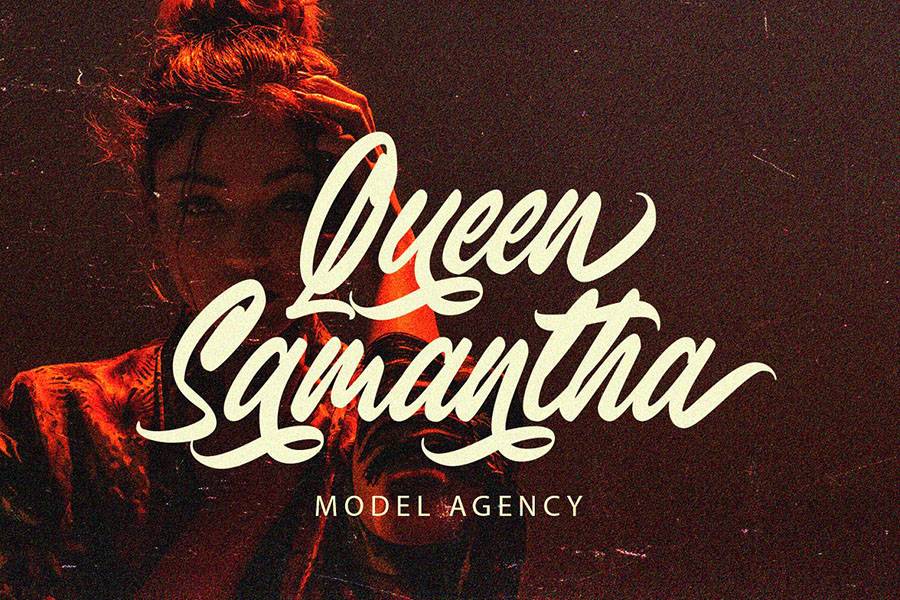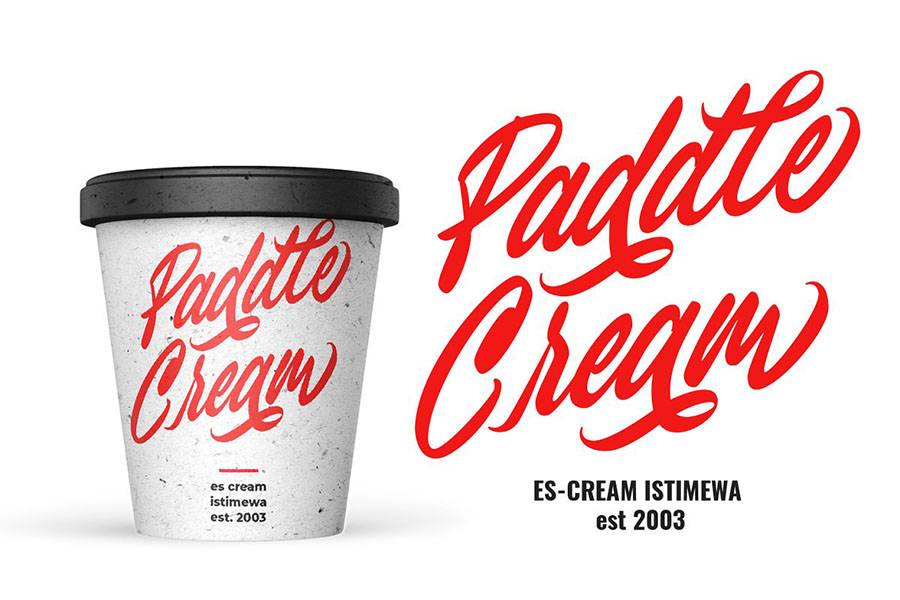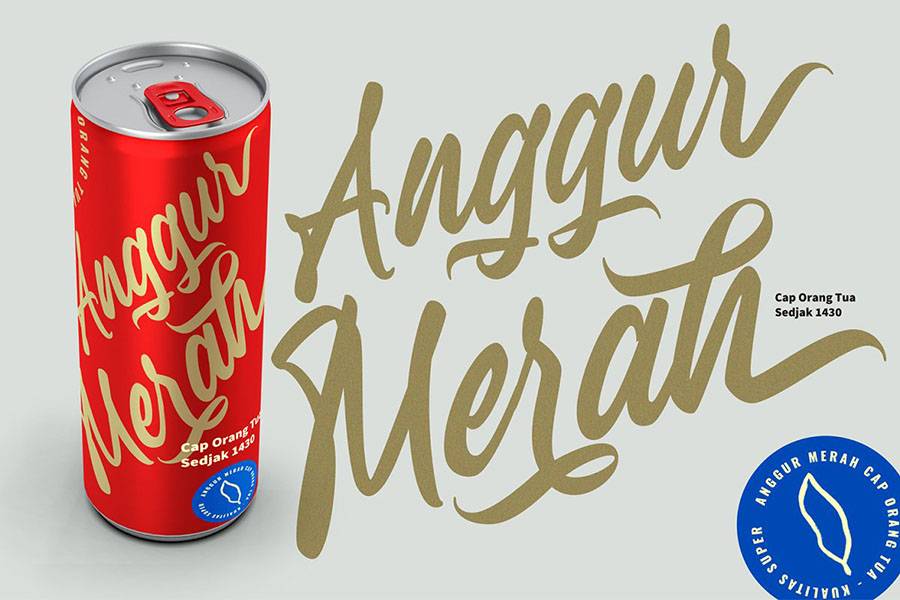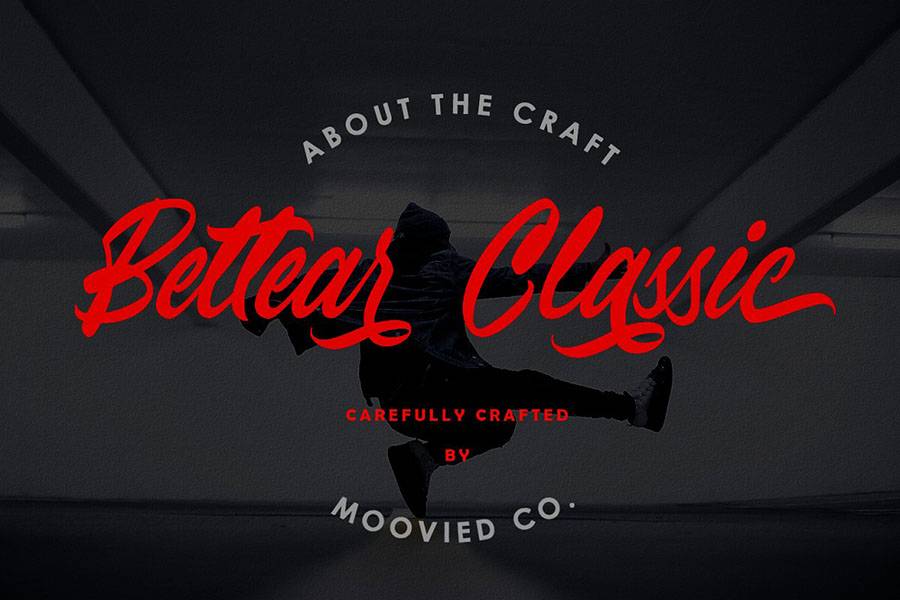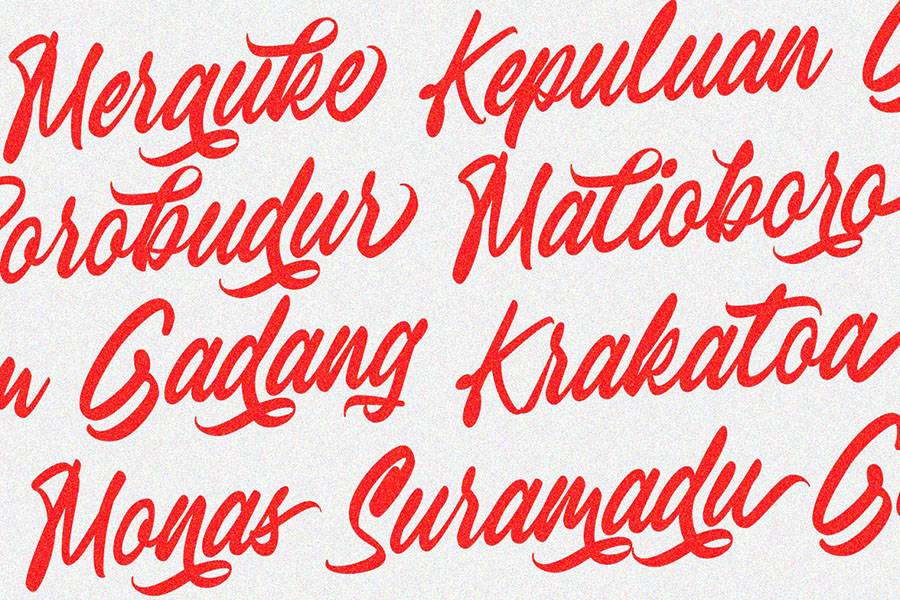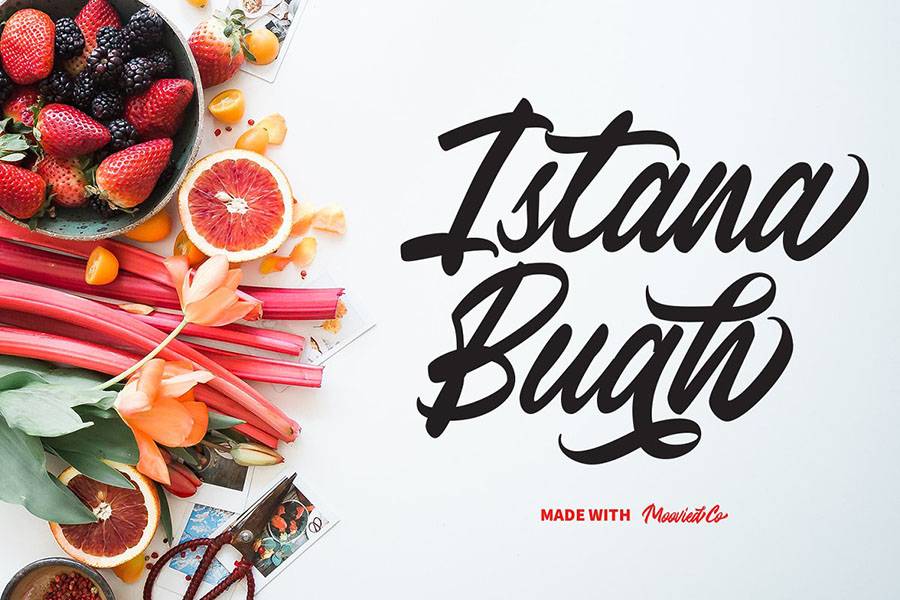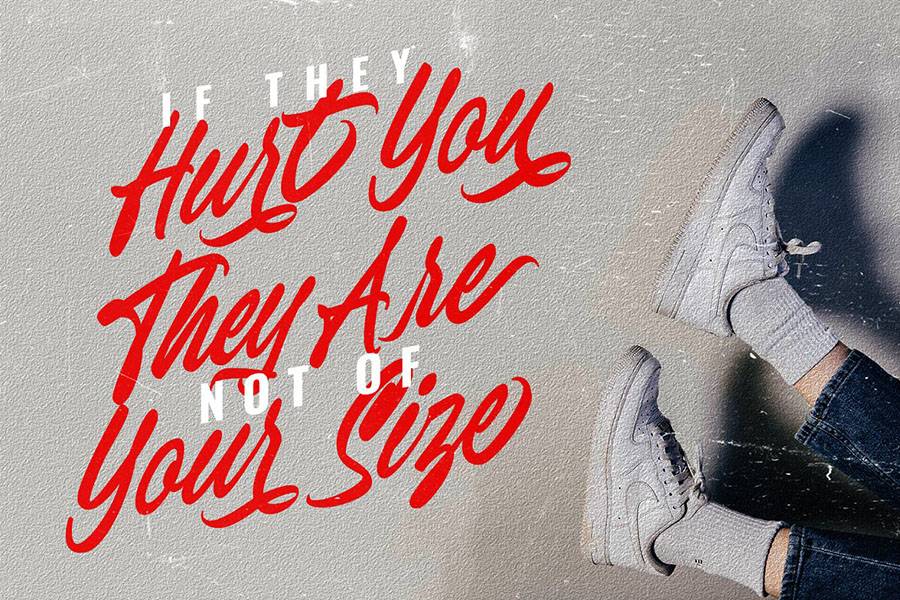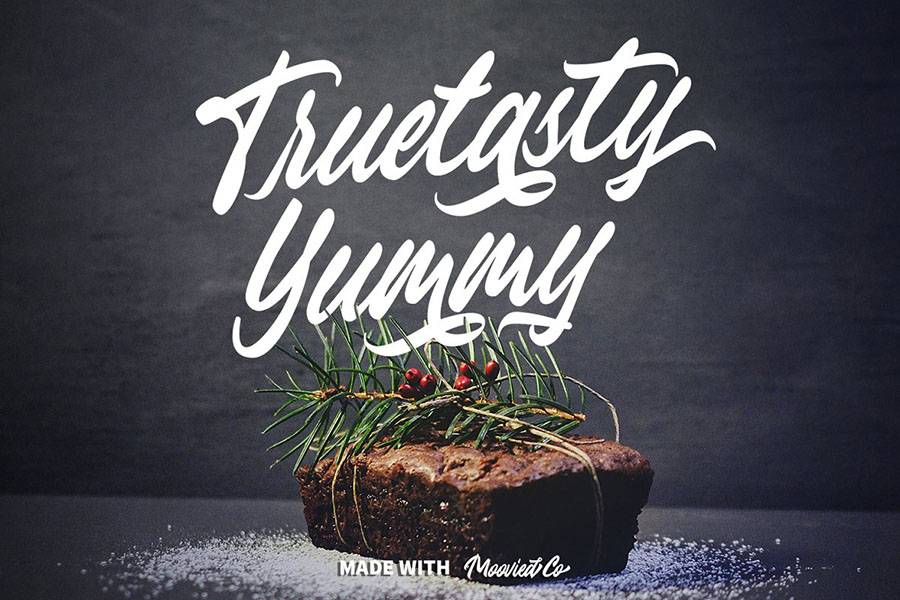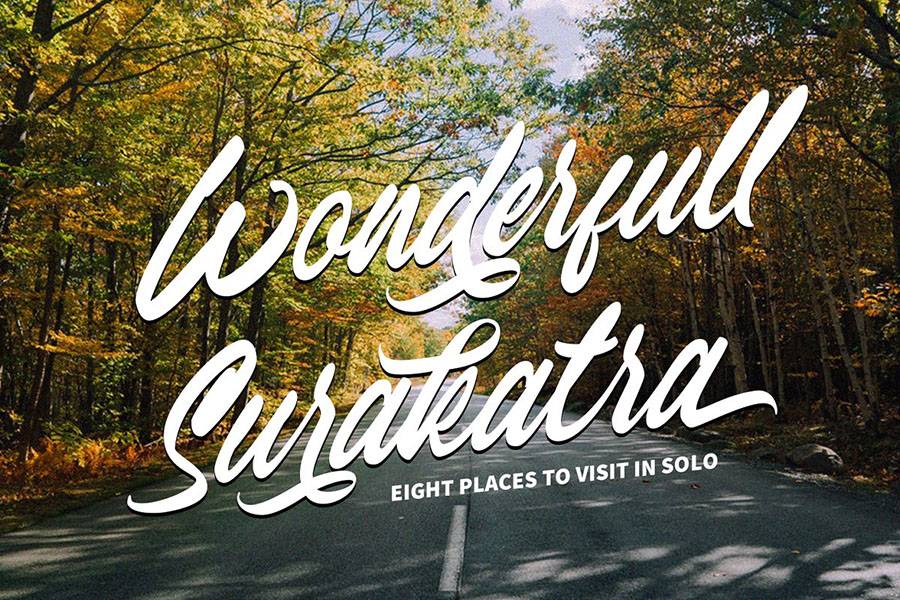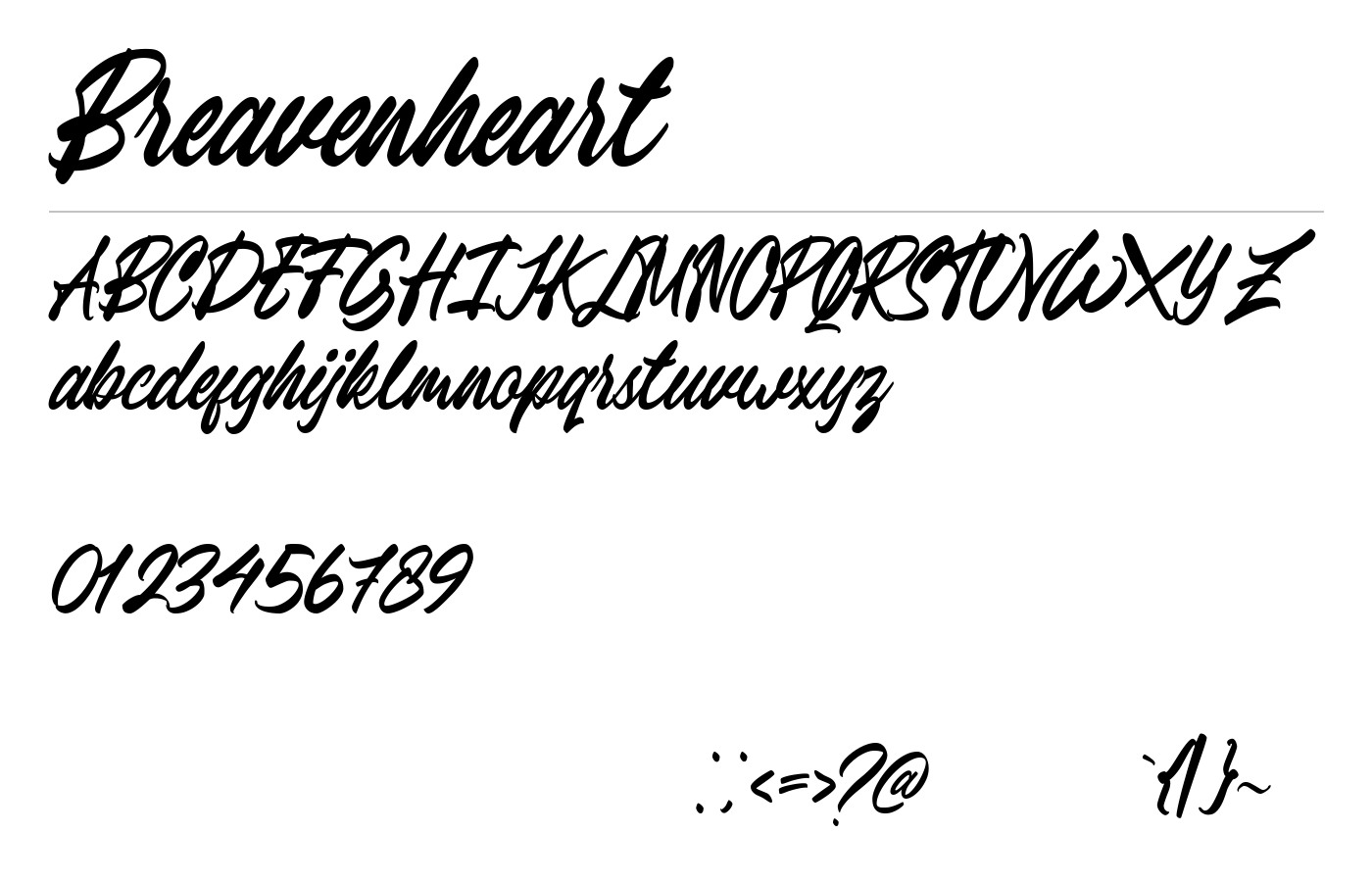
Breavenheart Script Demo is a dynamic and elegant script font featuring fluid, hand-drawn strokes with a bold weight and a slightly condensed width, giving it an energetic yet refined appearance. Its distinct, smooth curves and natural flow make it ideal for branding, invitations, and expressive headlines where a personal, stylish touch is desired. This font works well in creative and luxury contexts, adding a sense of sophistication and vitality to any design.
Breavenheart Script Demo
About Breavenheart Script Demo
| Font family | Breavenheart Script Demo |
| Release date | 2019-03-19 |
| Designer | Moovied |